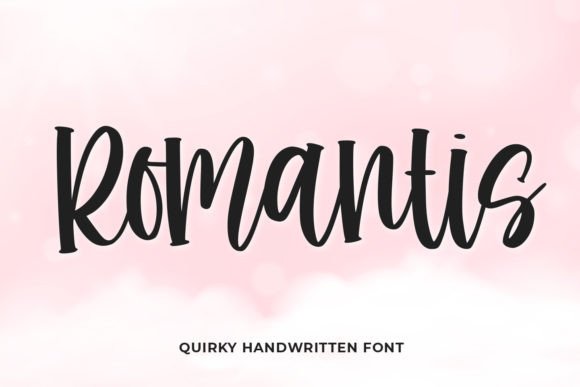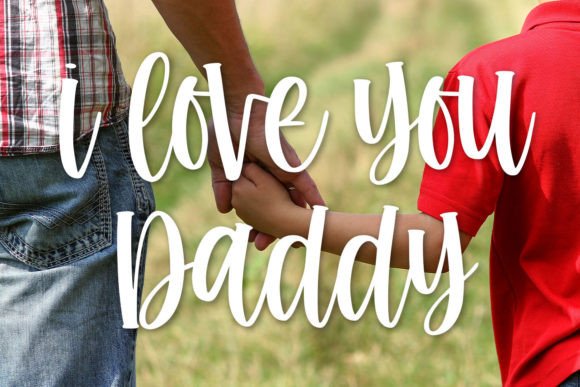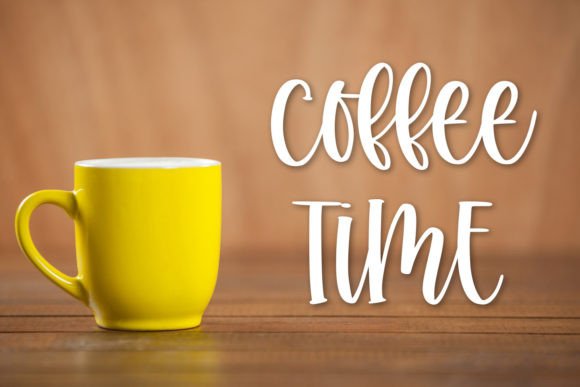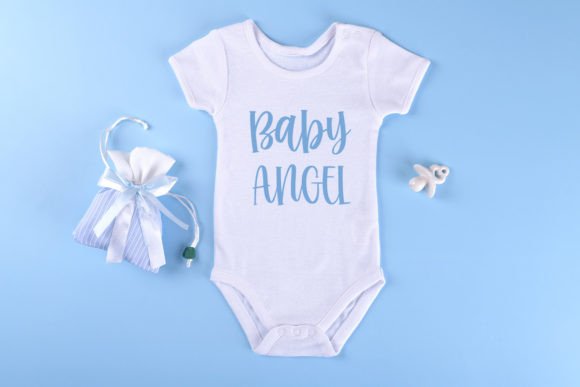
Romantis Font: A Cute Handwritten Script for Cricut & DIY Projects
About the Romantis Font
Meet Romantis Font, a stunning font that brings a touch of elegance and professionalism to any design. Romantis is a fun and fresh handwritten font. Whimsical and a little bit quirky, this cute font will definitely brighten up each of your designs.
Romantis thrives in projects requiring a touch of playful charm. Ideal applications include short headlines, logos for brands targeting a younger demographic, social media graphics, and packaging for products with a lighthearted appeal. It works exceptionally well for invitations, especially those with a hand-drawn aesthetic.
However, its informal nature makes it unsuitable for large blocks of text or body copy. Avoid using Romantis for lengthy paragraphs, user interfaces, or situations demanding high readability.
Pairing Romantis with a clean sans-serif like Open Sans for body text creates a balanced contrast. For a more sophisticated feel, consider a classic serif such as Garamond. If a more playful aesthetic is desired, a simple geometric sans-serif could also work effectively. The overall personality of Romantis is best described as cheerful and approachable, with a distinctly whimsical feel.
Romantis Font Usage Examples